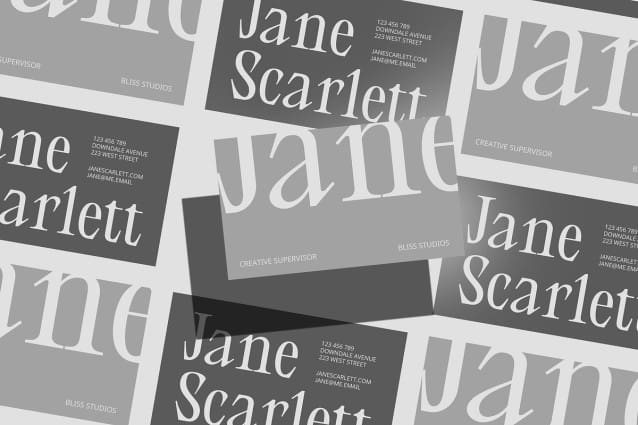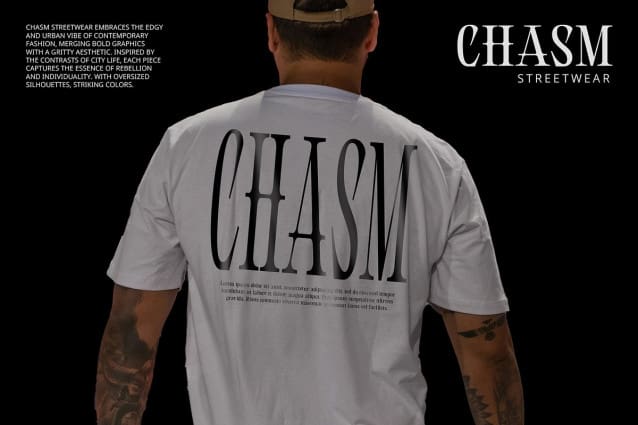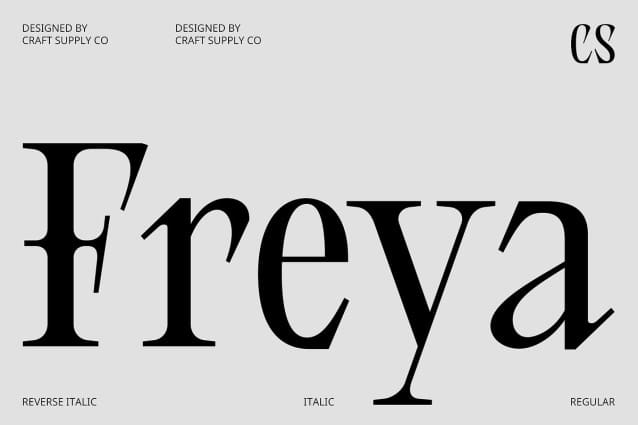
CS Freya Font
CS Freya Font is a modern serif font that showcases a contemporary design with clean, proportional lines, exuding both elegance and professionalism. Its balanced letterforms provide a sophisticated aesthetic, making it suitable for a wide range of design applications.
Versatile for Diverse Applications With its high legibility and refined appearance, CS Freya is ideal for business cards, invitations, and branding materials. This font effortlessly adapts to various contexts, ensuring your message is conveyed clearly and attractively.
Timeless Appeal Meets Modern Trends The combination of classic elegance and modern touches in CS Freya allows it to resonate with current design trends while maintaining a timeless quality. Its unique character creates a strong and appealing impression, making it an excellent choice for both corporate and creative projects.
Perfect for Building a Professional Identity Whether you’re crafting a sophisticated brand identity or designing formal invitations, CS Freya delivers the perfect balance of elegance and functionality. This font enhances your design with its graceful lines and modern flair, making it a standout choice for any project.